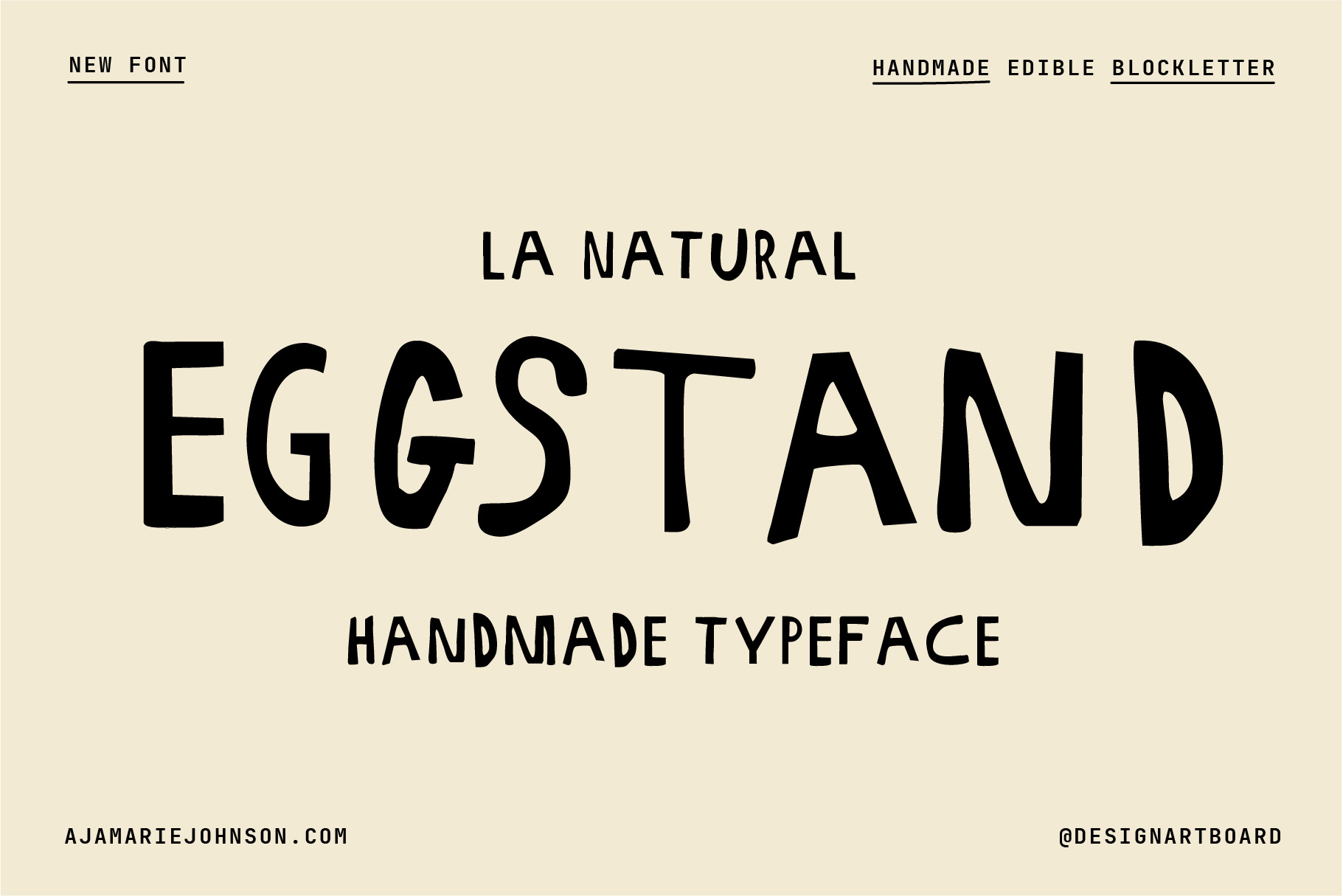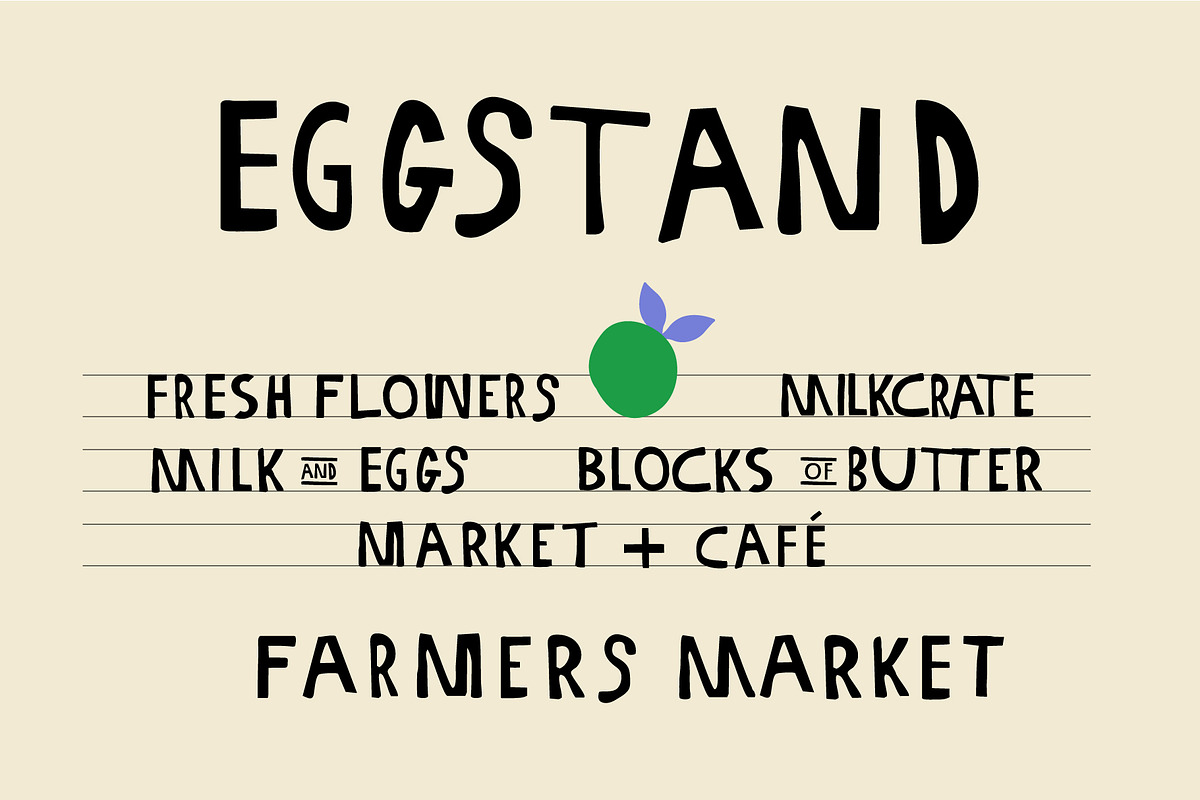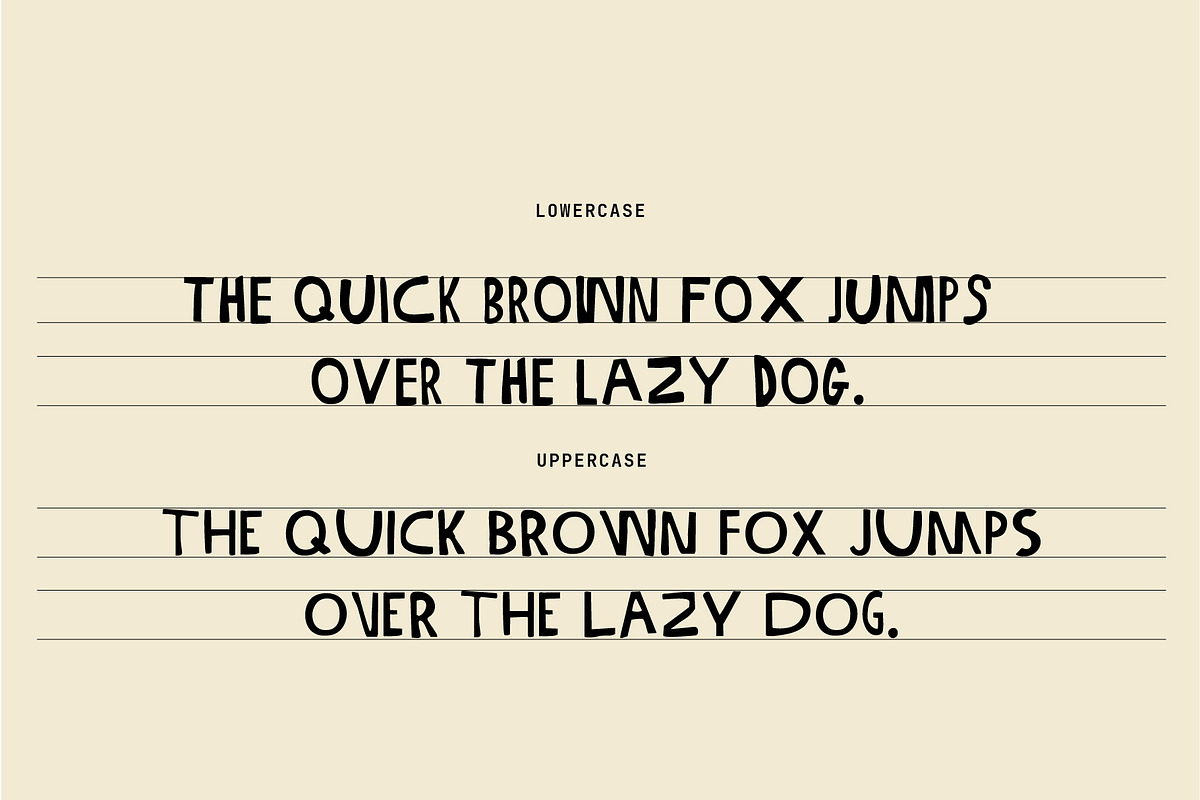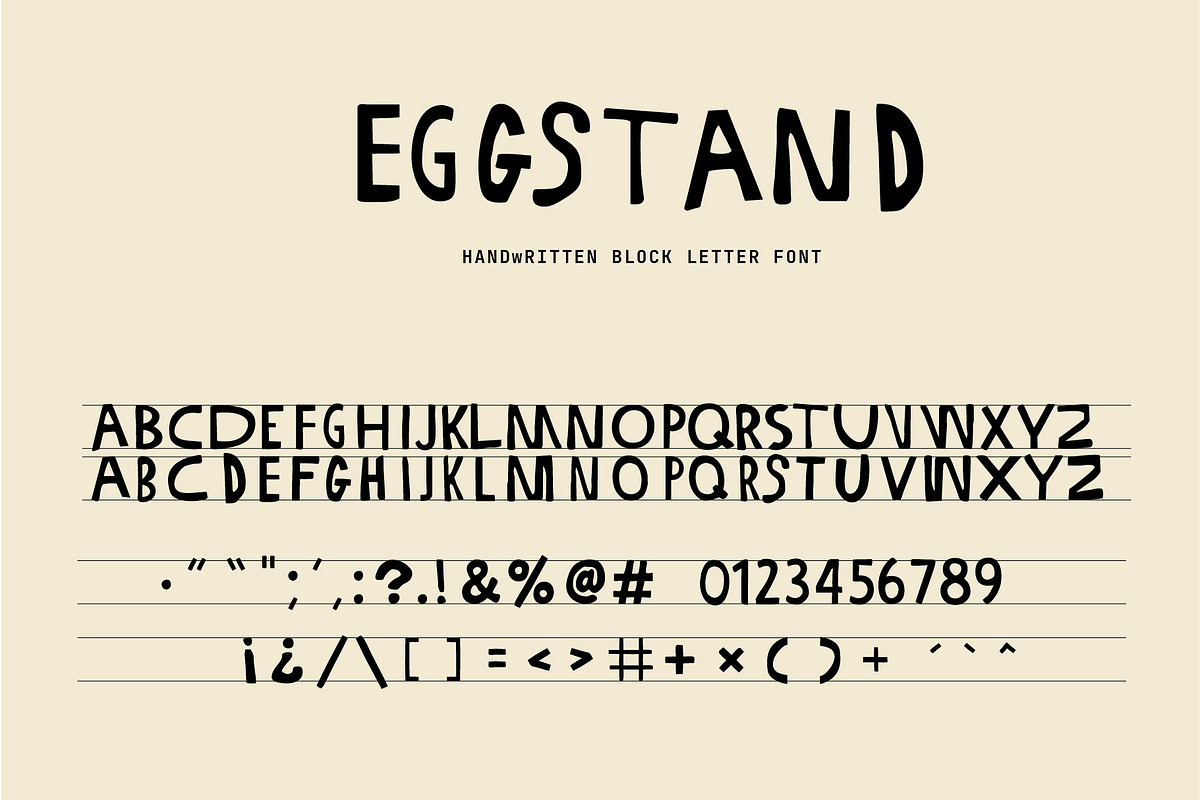
EGGSTAND Typeface
Introducing EGGSTAND Typeface
A hand-crafted block letter font made for farm stands, food brands, and makers of anything natural.
A bold, hand-drawn food label font, EGGSTAND brings natural, rustic energy to product packaging and artisanal branding. Think berry crates, sourdough wrappers, homemade jam labels, and seed bar pouches—EGGSTAND gives them all that small-batch, local feel. This kit includes the full custom typeface.
- Designed for: jars, pouches, boxes, bottles, wraps, signage
Whether you're designing for a small-batch pickle brand, superfood bars, or fresh-squeezed juice, this font has you covered with handmade vibes and flexible formats.